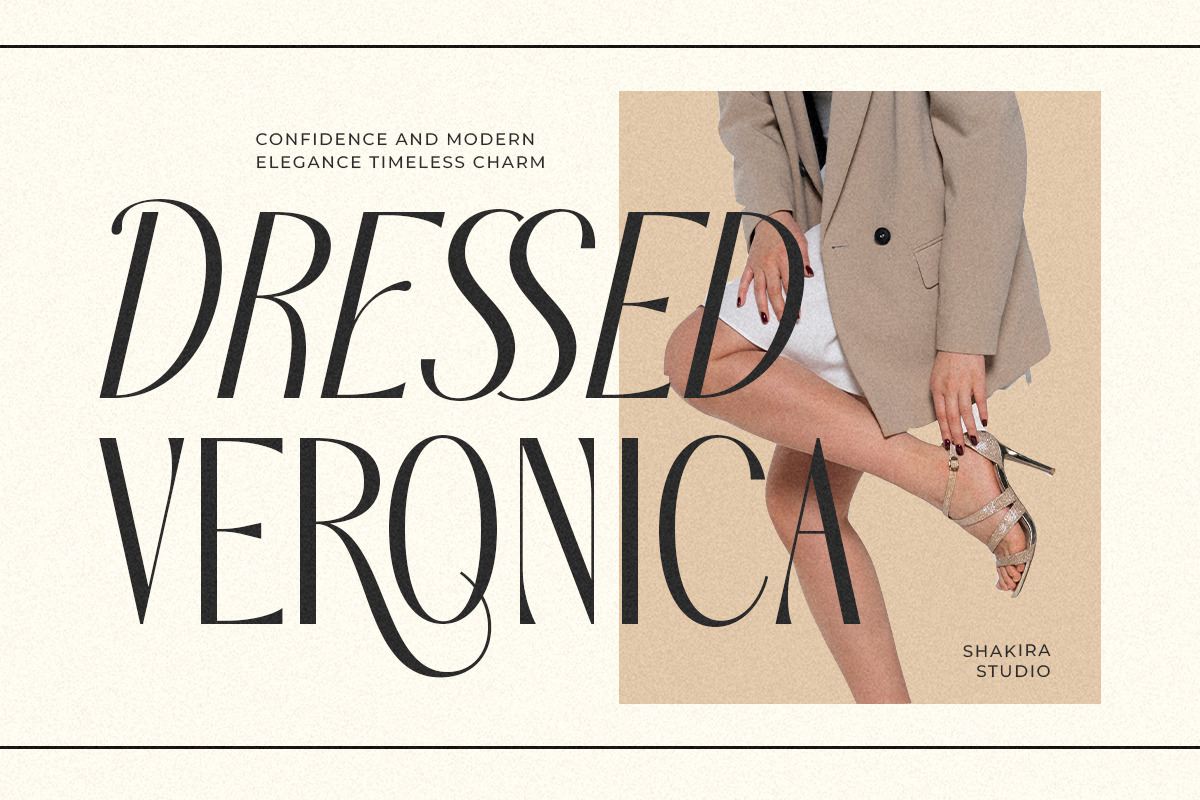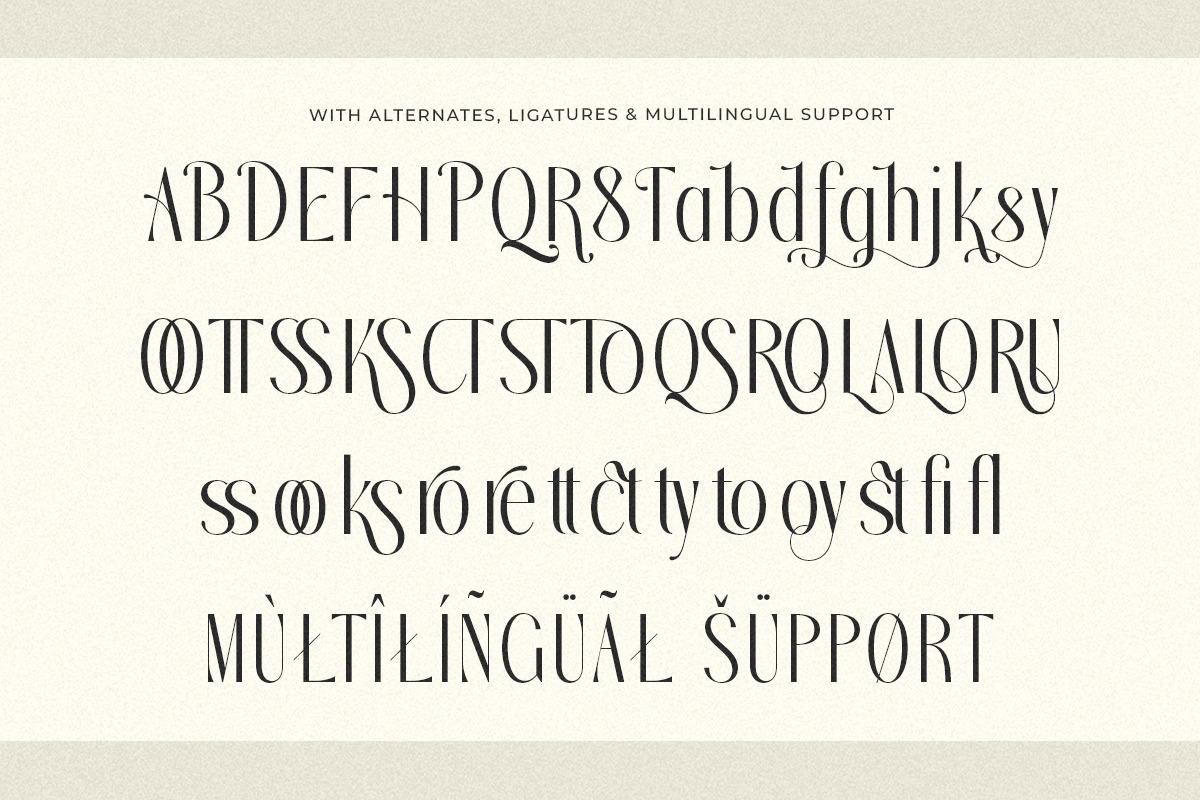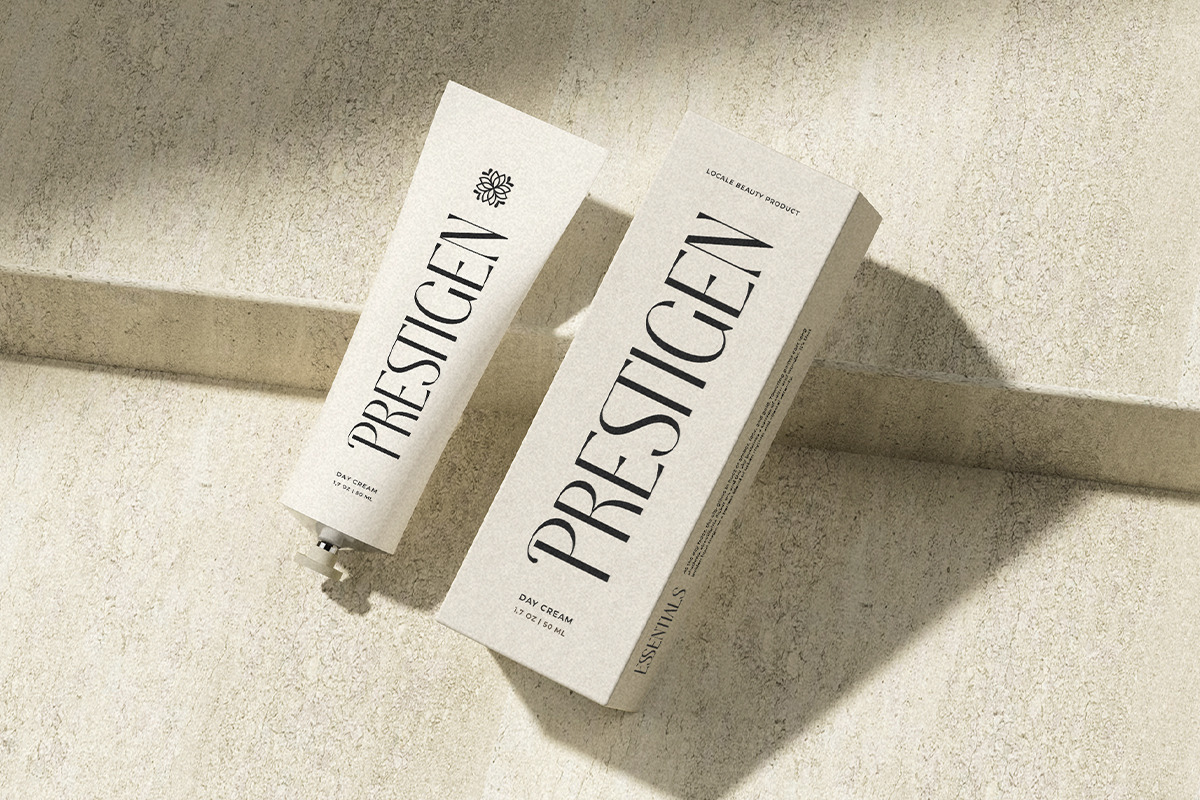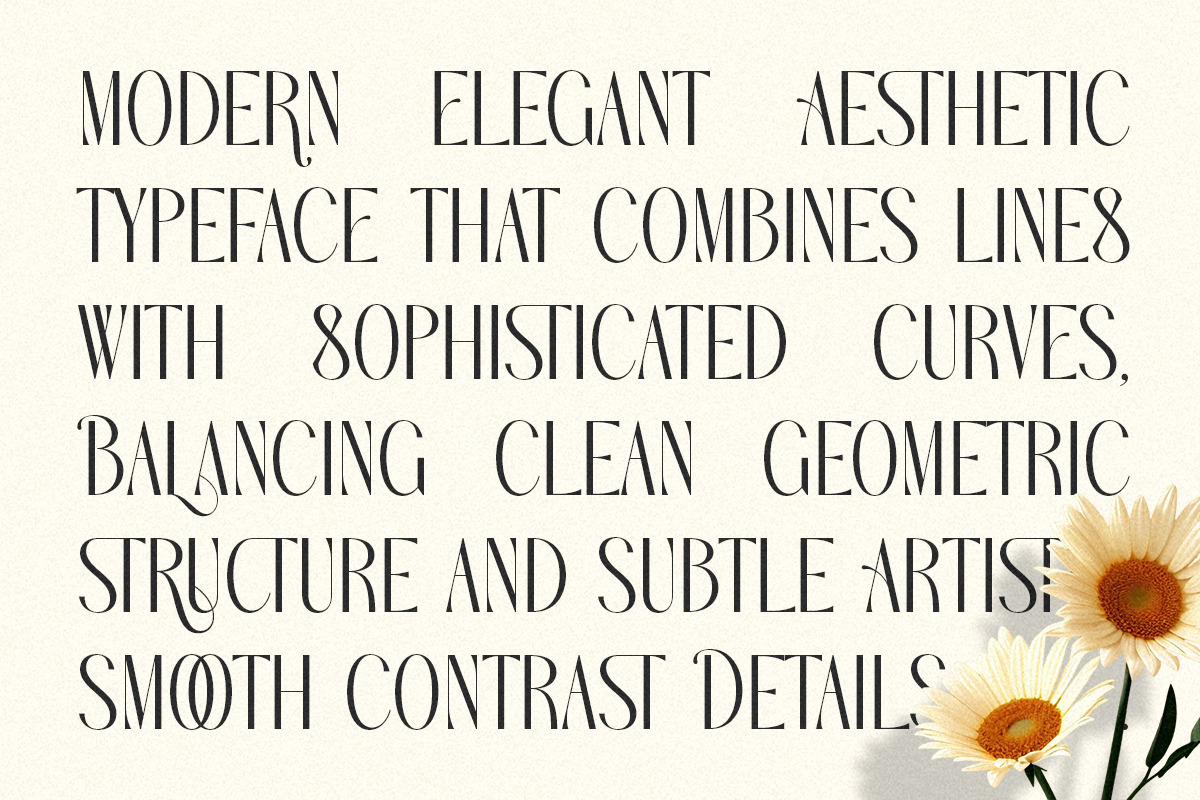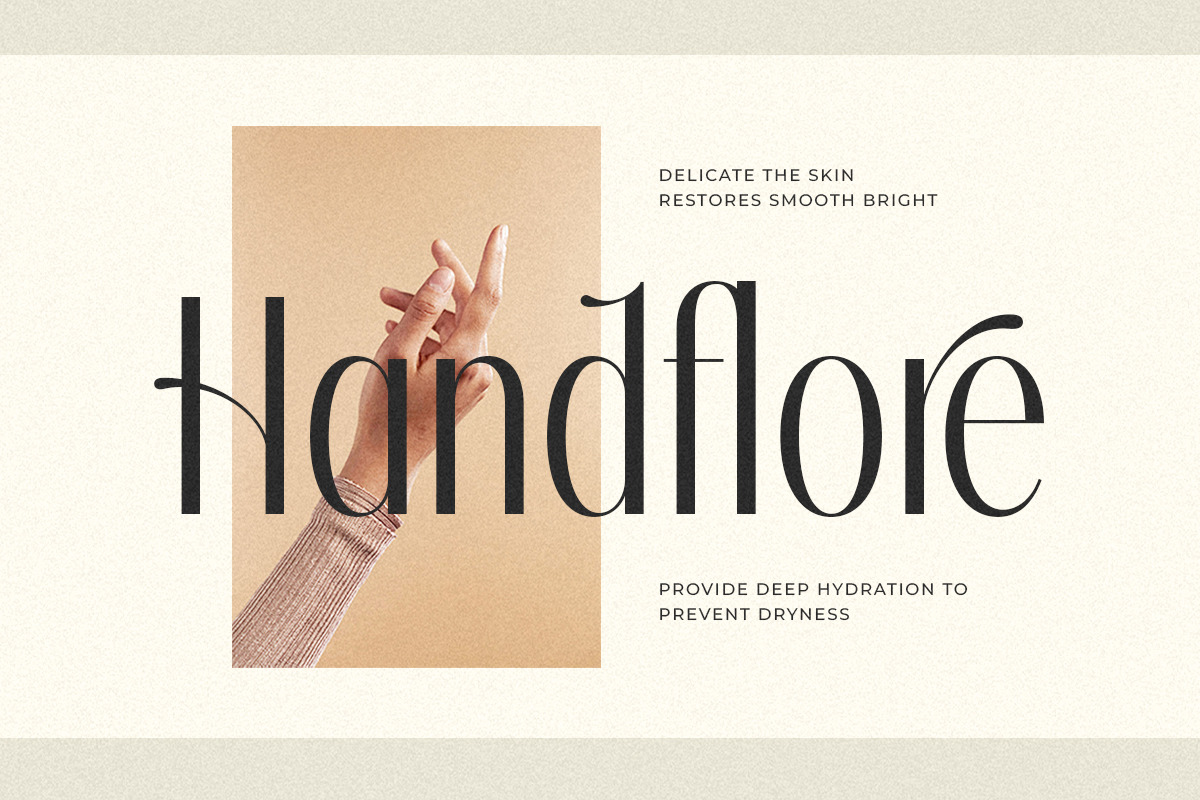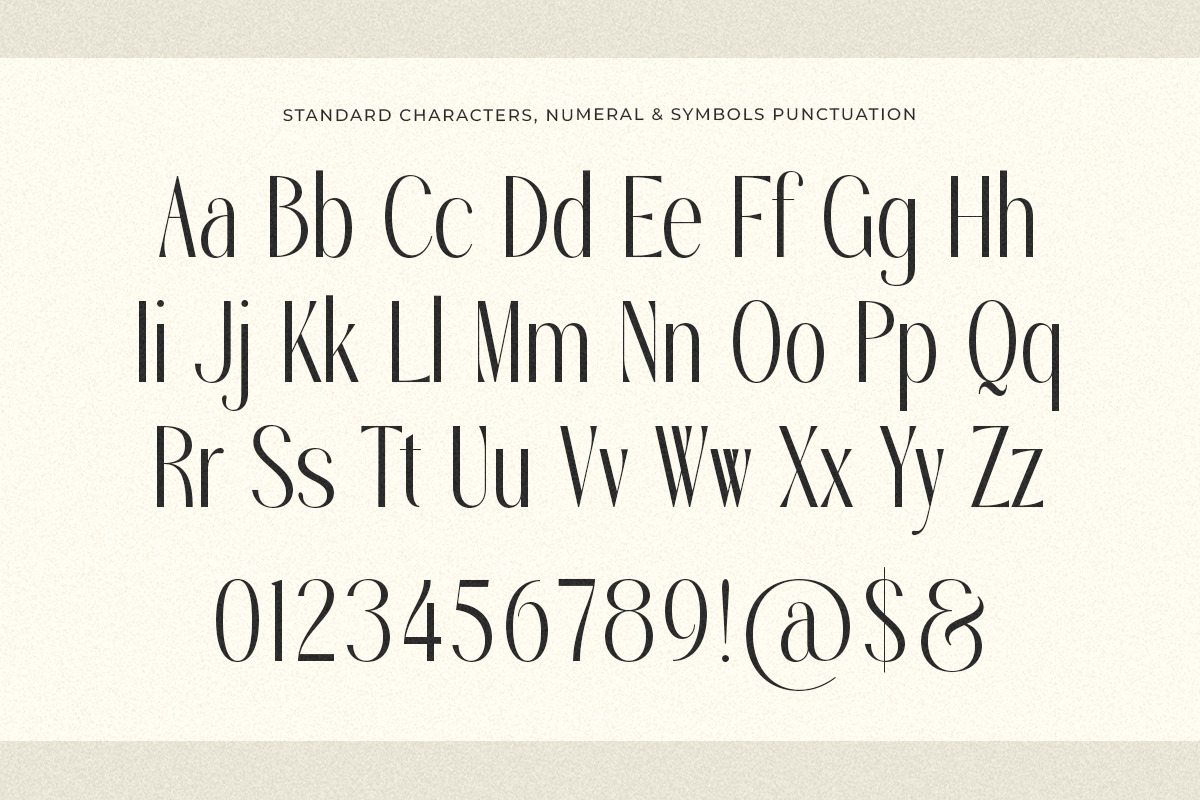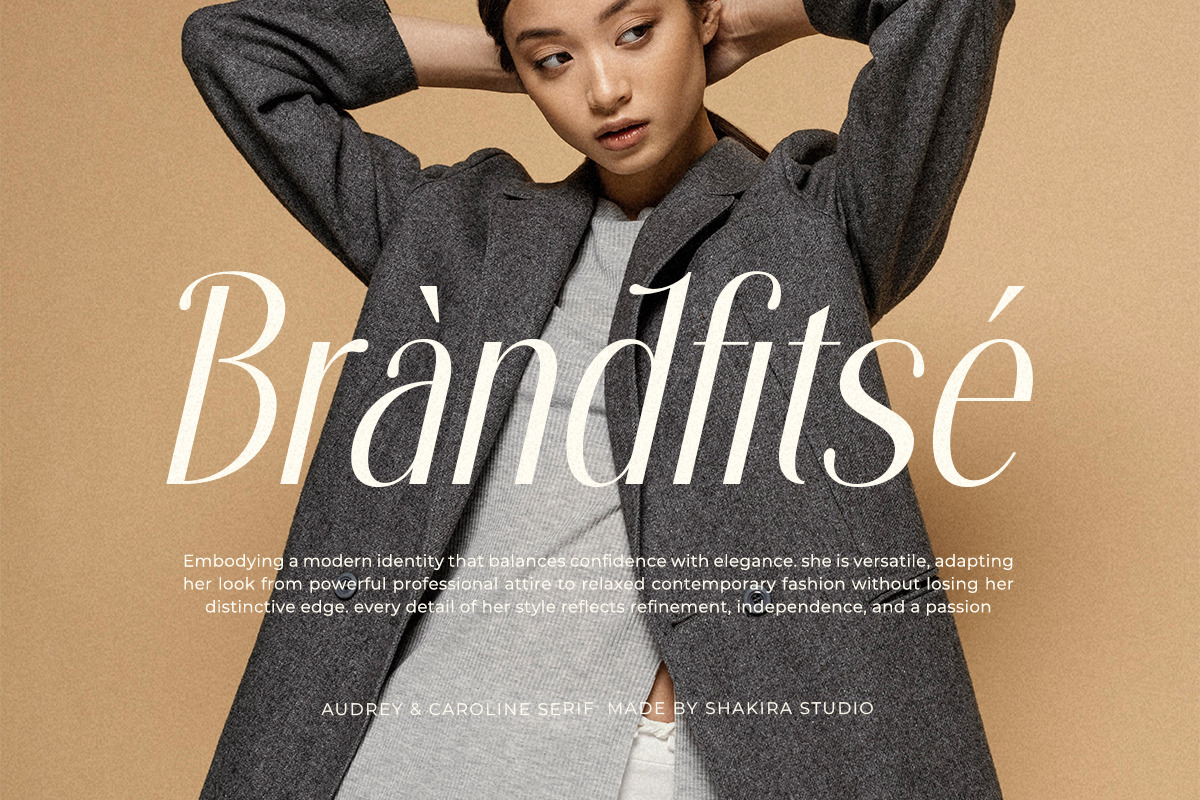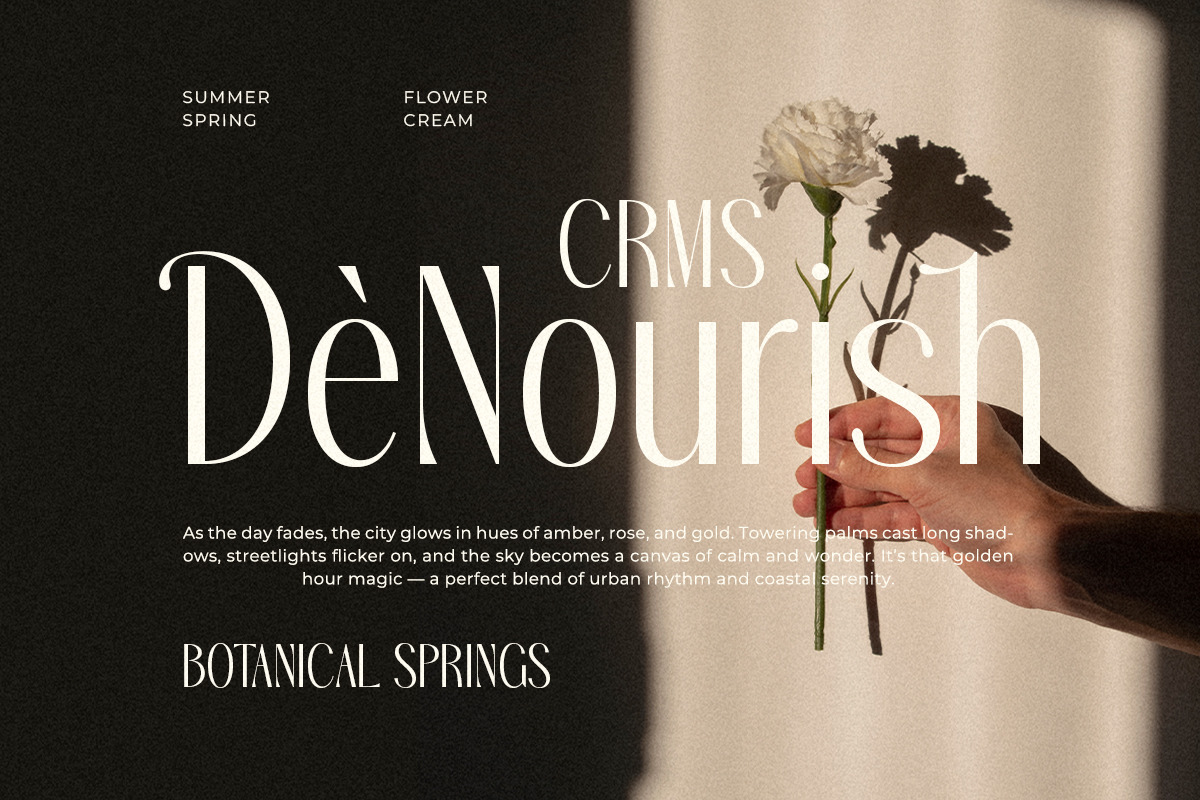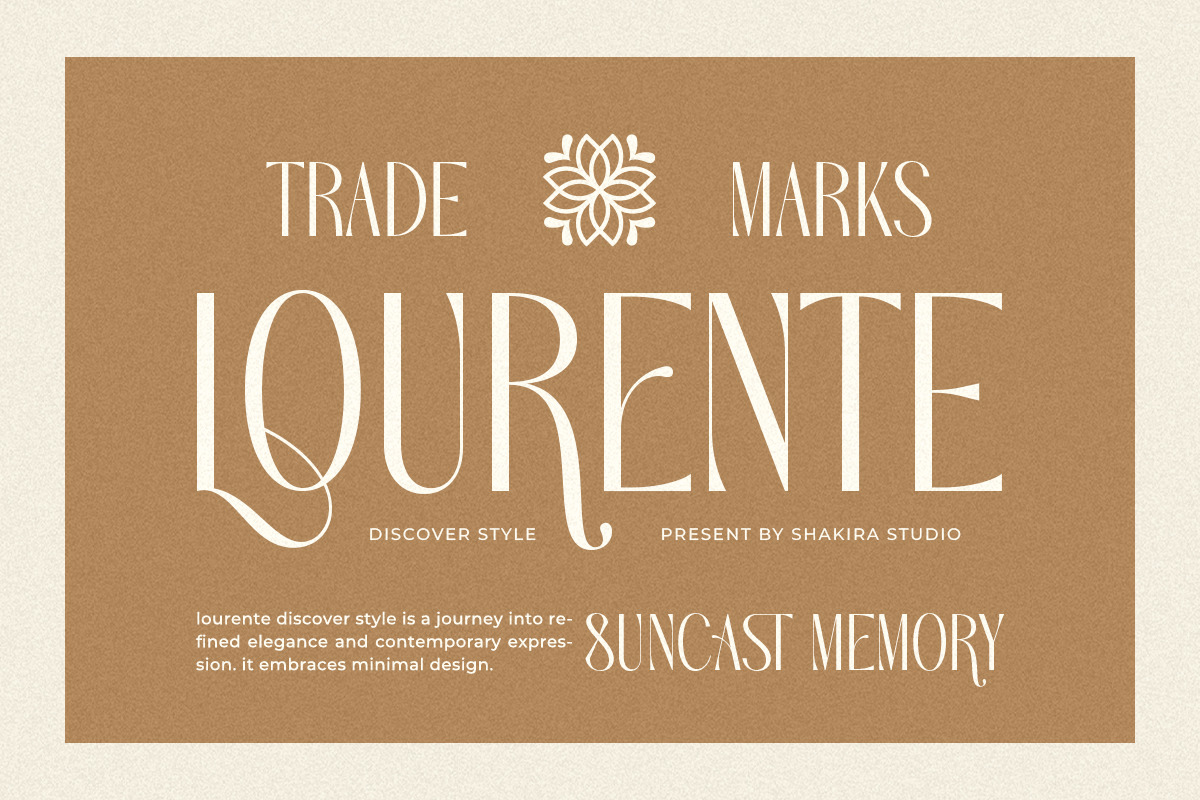
Audrey & Caroline - Elegant Modern
Meet Audrey & Caroline, a modern serif font designed to feel elegant, soft, and confident. Its balanced letterforms and subtle details create a refined look that works beautifully across editorial layouts, fashion brands, and lifestyle projects.
This font is perfect for designers who want a serif that feels timeless yet modern, expressive yet clean.
- Regular & Italic
- Full uppercase & lowercase
- Elegant alternates
- Clean contrast strokes
Perfect For Fashion branding, editorial headlines, magazines, beauty brands, lifestyle logos, social media templates, and modern print design.